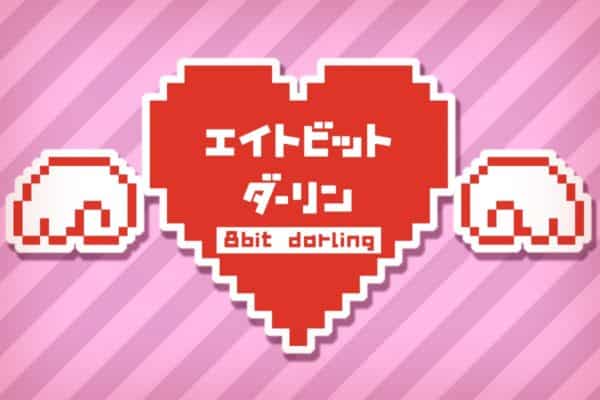
24+ Best Pixel Fonts – Perfect for Gaming, Retro Designs & Cricut (2023)
Whether you are Gen X, Gen Z, or in between, we can all agree that 8-bit fonts & pixel fonts are one of the coolest font styles around. One can say that they’re timeless classics
It was first popularized by classic video games such as Space Invaders and Pac-Man in the late 70s and has since been revived by designers and artists for its playful and nostalgic persona.
If you want to go old-school and give your designs a retro look, these pixel fonts will invoke a strong sense of nostalgia in your readers, especially those fond of computers and video games.
We have listed down the 20 best pixel fonts including 8-bit fonts in this article to make it easier for you.
Below is the list of the top 20 free and premium pixel fonts you can add to your collection.
24+ Best Pixel Fonts & 8-Bit Fonts for Retro Designs, Gaming & Cricut
1. TickerBit Retro Pixel
Are you looking to create fun retro projects for logos, editorial, clothing, package design, and headlines all with a vintage feel? The numerous fonts available are probably overwhelming but we recommend checking out the TickerBit pixel font.
In our opinion, it is a playful font with four distinct styles and works great for retro and contemporary designs of all sizes. Hence, you can also use this for both big and small projects. The possibilities are endless with TickerBit Retro Pixel font.
2. Pixel AFS Mincho
Resembling the brightly-lit electronic billboards of Tokyo, Pixel AFS Mincho will add a modern feel and futuristic vibe to your projects. From our perspective, it’s designed with a minimalist style and unique letterforms.
We recommend this sophisticated and elegant typeface for branding projects, product packaging, magazine headers — or simply as a stylish text overlay to any background image. We’re confident that there are many creative ideas you can express with this pixel font.
3. Bitbybit
Bitbybit is a pixel typeface that takes inspiration from retro gaming culture when square controllers left your palms sweaty and bruised, and Nintendo thumb or ‘Nintendonitis’ was a severe injury. In those days, we remember how fonts in games featuring lowercase letters were extremely rare, let alone fancy punctuation marks.
We found that trending Bitbybit bucks include upper and lowercase characters, plus numerals and symbols. We suggest its usage for headers, posters, products, and other retro-themed projects.
4. Retro Gaming AFS Gothic
Instantly, teleport your readers to the stylish and flamboyant ’80s with this retro-gaming font inspired by vintage games. In our opinion, this incredibly versatile font is perfect for various design projects such as posters, social media posts, t-shirts, banners, presentations, headlines, and more.
As a part of the Retro Gaming AFS Gothic pack, you also get 100 external characters and emojis that give you the creative freedom to create incredible unique designs. You’ll surely evoke a sense of nostalgia with this retro pixel font.
5. MonoPixel Awesome
Made for designs as vibrant as the font itself, MonoPixel Awesome is a bitmap typeface that will add a ton of color and cheerfulness to any project. In our opinion, this monospaced sans serif font is ideal for making displays, headlines, and other projects stand out.
We found that the font is also optimized for any size so you don’t have to worry about using it for headers, posters, and signages.
6. Broken Console
With its elegant and straightforward ombre design, the Broken Console typeface comes with a big personality and plenty of styles—regular, bold, and shadow.
This all-caps geometric pixel font takes inspiration from old-school gaming consoles and is suitable for contemporary design. Specifically for themes such as techno, digital, retro, cyberpunk, Gaming, and much more!
7. Game Over
Are you looking for a break from monotonous pixel fonts? The Game Over typeface is a breath of fresh air with its unique super-sized pixel characters suitable for any game or display purpose. This fun and quirky font is a perfect choice for games, book covers, titles, packaging, branding, and more.
Choosing the best pixel fonts from a sea of unique options can be an arduous task, and we hope that our list of the 20 Best Pixel Fonts has helped you make the right decision for your project.